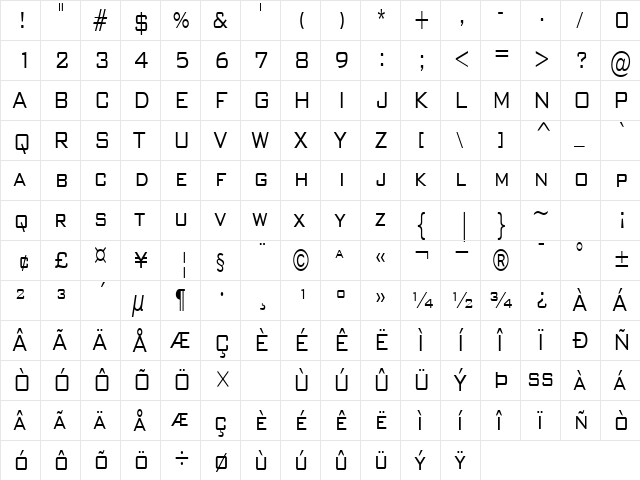
WallStreetCondensed Regular
Design Context for WallStreetCondensed Typeface
WallStreetCondensed offers clean, dependable letterforms without strong stylistic allegiance, making it a practical choice for designers who need flexibility. Its narrow stance lets it pack a punch even in space-constrained designs.
Pro Tip: Use WallStreetCondensed in both headline and body roles to test its range before committing to a single application.